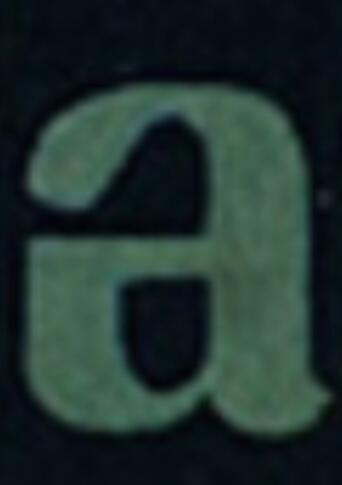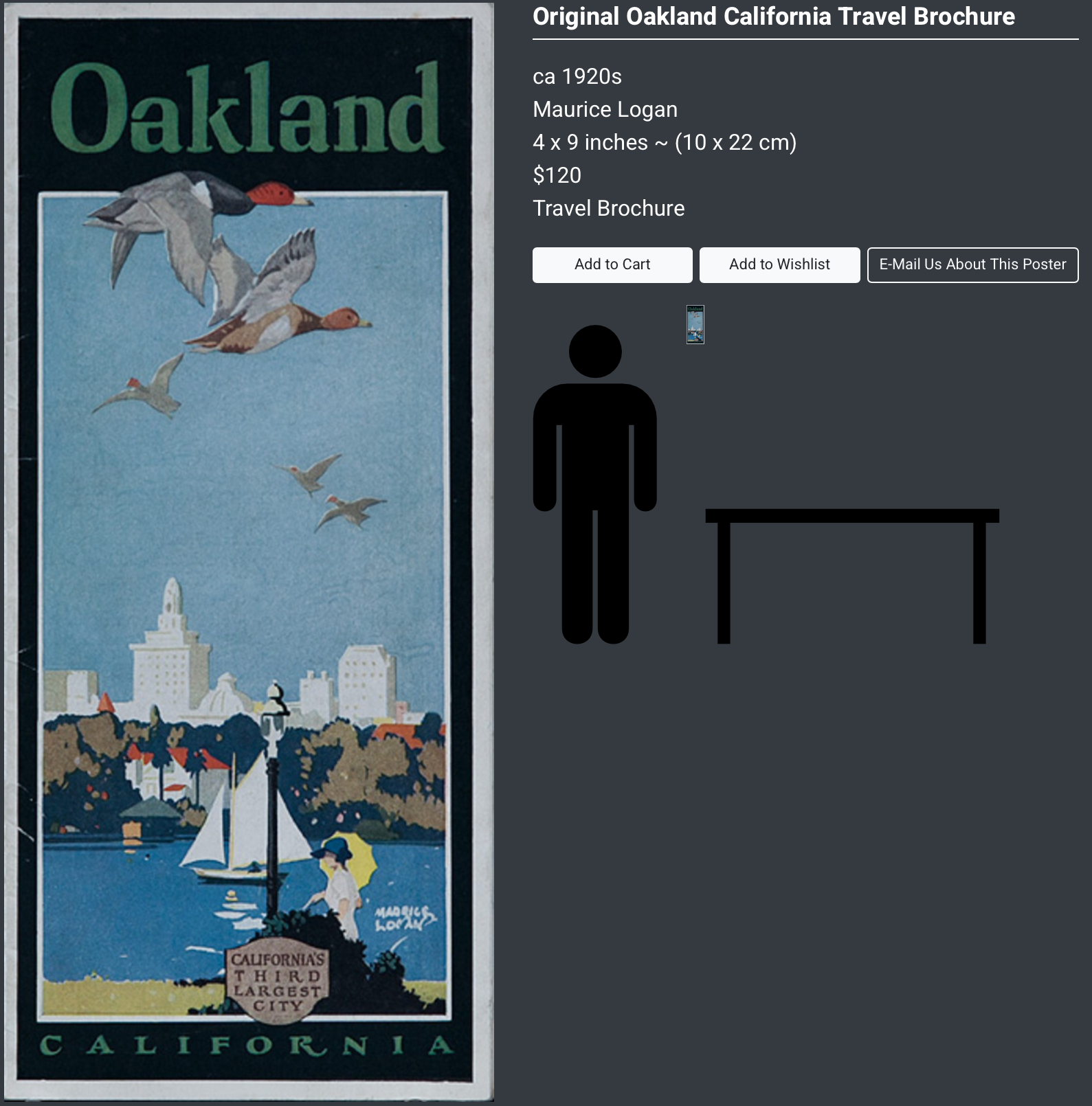
Looking for help identifying a font from an anonymous letter (1988)
Hi Everyone! I’m new to the forum and I need some help. I’ve spent several months searching for this font, but I just can’t find it. Identifying it is very important, as it could provide further informations about an anonymous missive connected to a major criminal case. The note, which contained these two small letters, arrived in Italy in 1988. It’s not clear whether the two are actually connected or if they were simply placed together by cutting and pasting. I cannot provide additional images of the missive, but I can tell you that all the other letters were taken from an Italian weekly magazine published between 1987 and 1988. These two small letters, however, cannot be found in any issue of that magazine. I therefore have no useful information regarding their origin. The “l” measures about 2 cm and the “a” about 1.6 cm. As far as we know, they could have come from Italy, but possibly also from America. Many thanks to anyone who can help me identify the font — or, even better, determine where these two letters were originally taken from.
This is the only letter 'a' that looks quite similar, but unfortunately it isn’t the same. It was taken from a 1920s brochure. It might have nothing to do with the one I’m trying to find, but it’s still the only one that resembles it.
Might it be an inverted 'e', rather than an 'a' ?
Thank you for your response MarcusW, but the small “tail” in the lower right indicates that it is the letter “a,” not an inverted “e.”